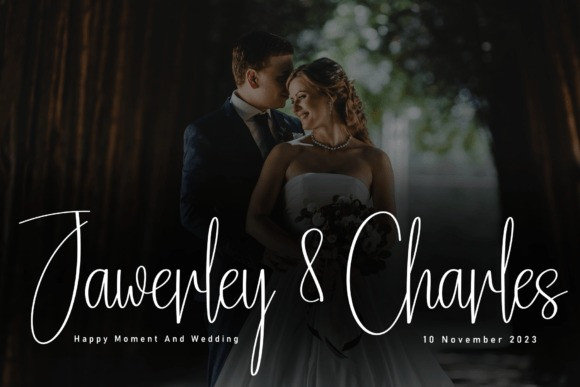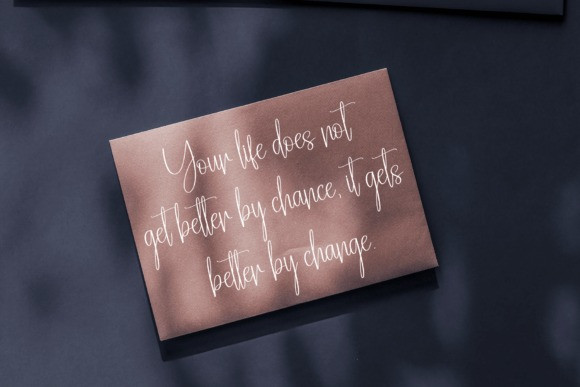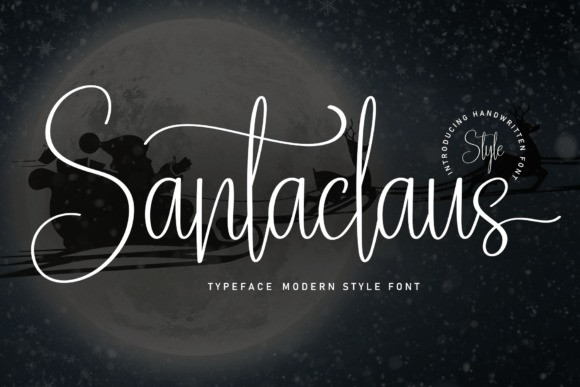
Santaclaus – Style Script Font
Santaclaus Font, a modern handwritten font that infuses a touch of festive charm into your designs. With its contemporary yet playful strokes, Santaclaus adds a trendy flair to your text, making it perfect for holiday greetings, invitations, and seasonal projects. Embrace the spirit of modernity with this delightful font that brings a contemporary twist to the timeless joy of handwritten style.